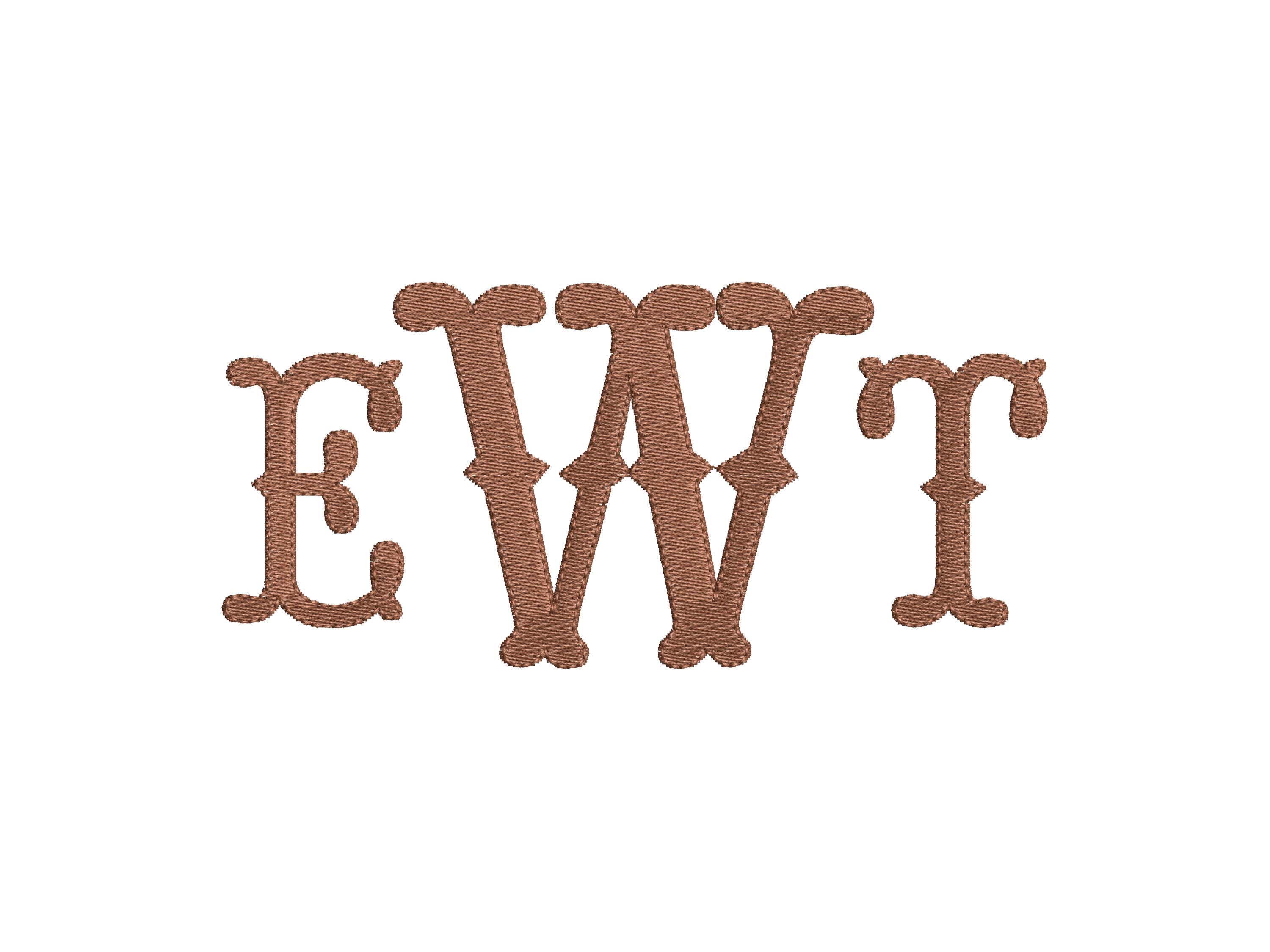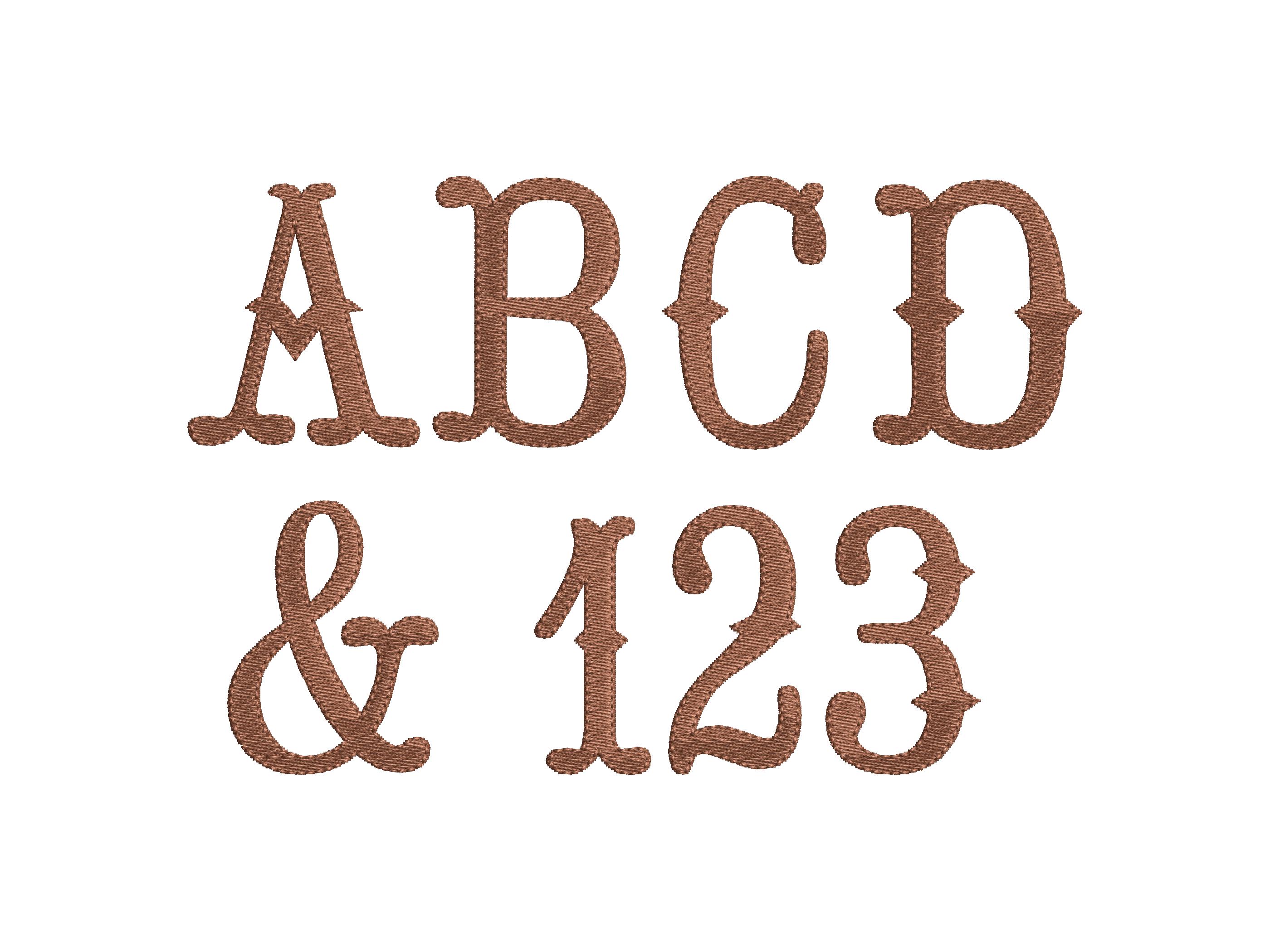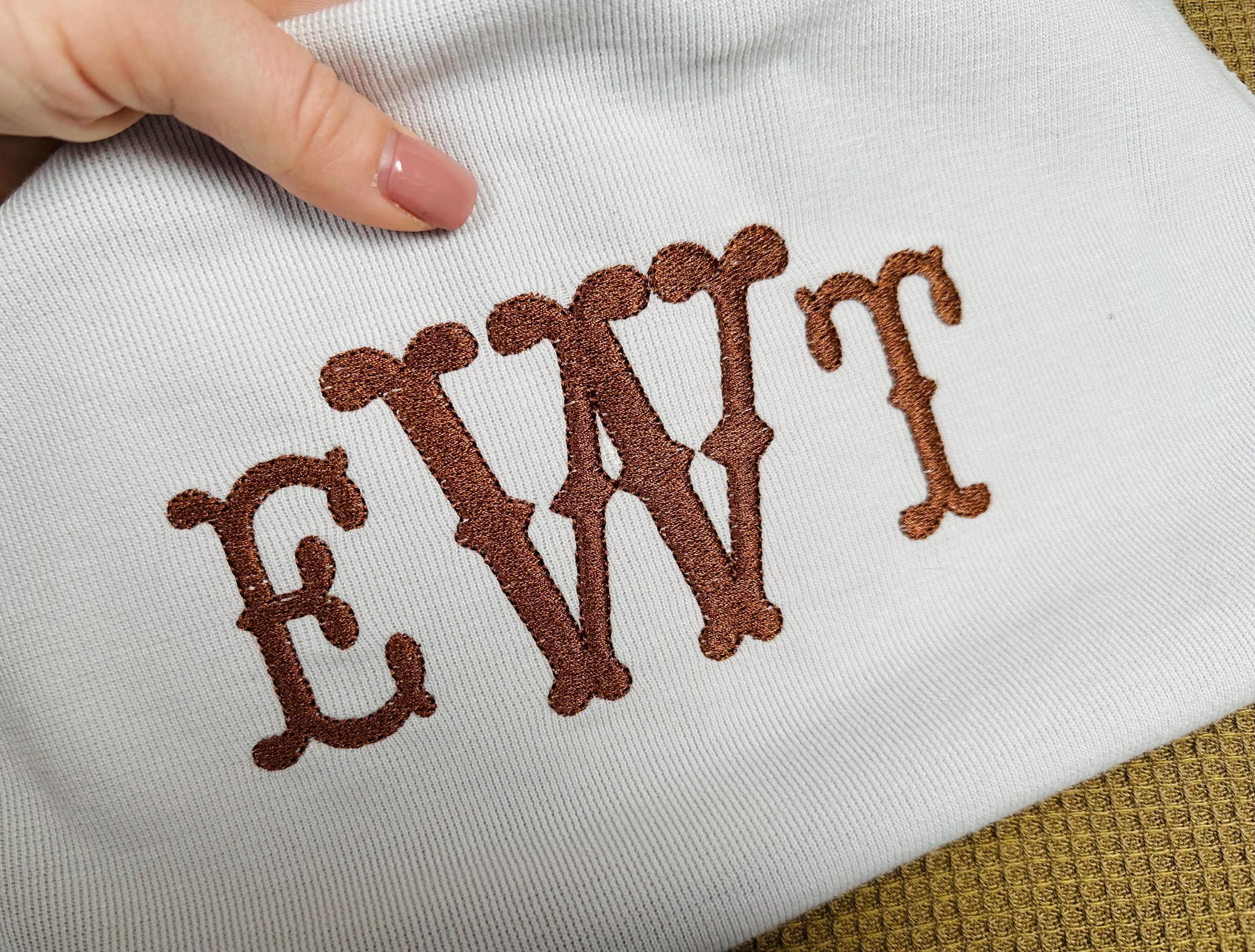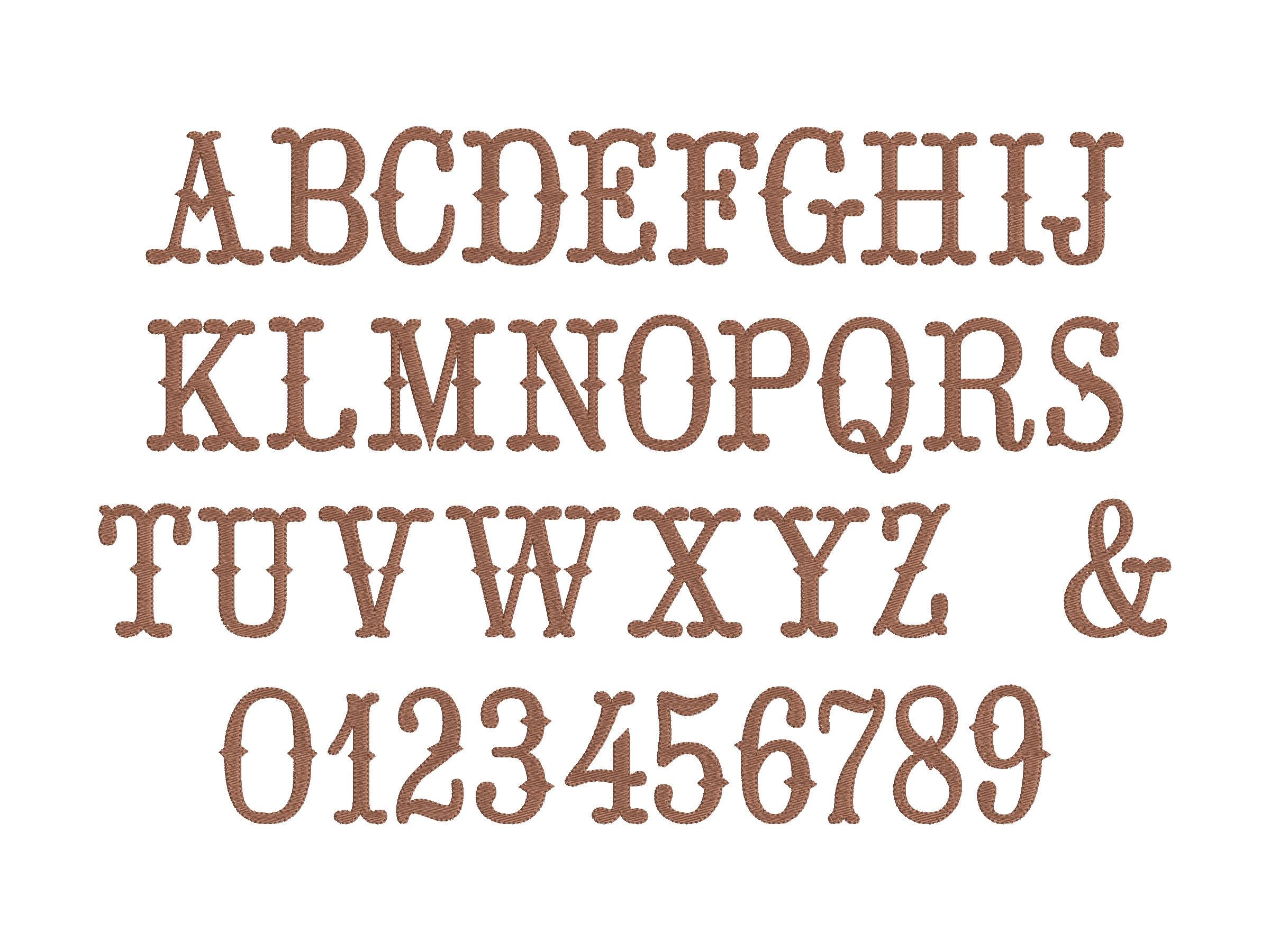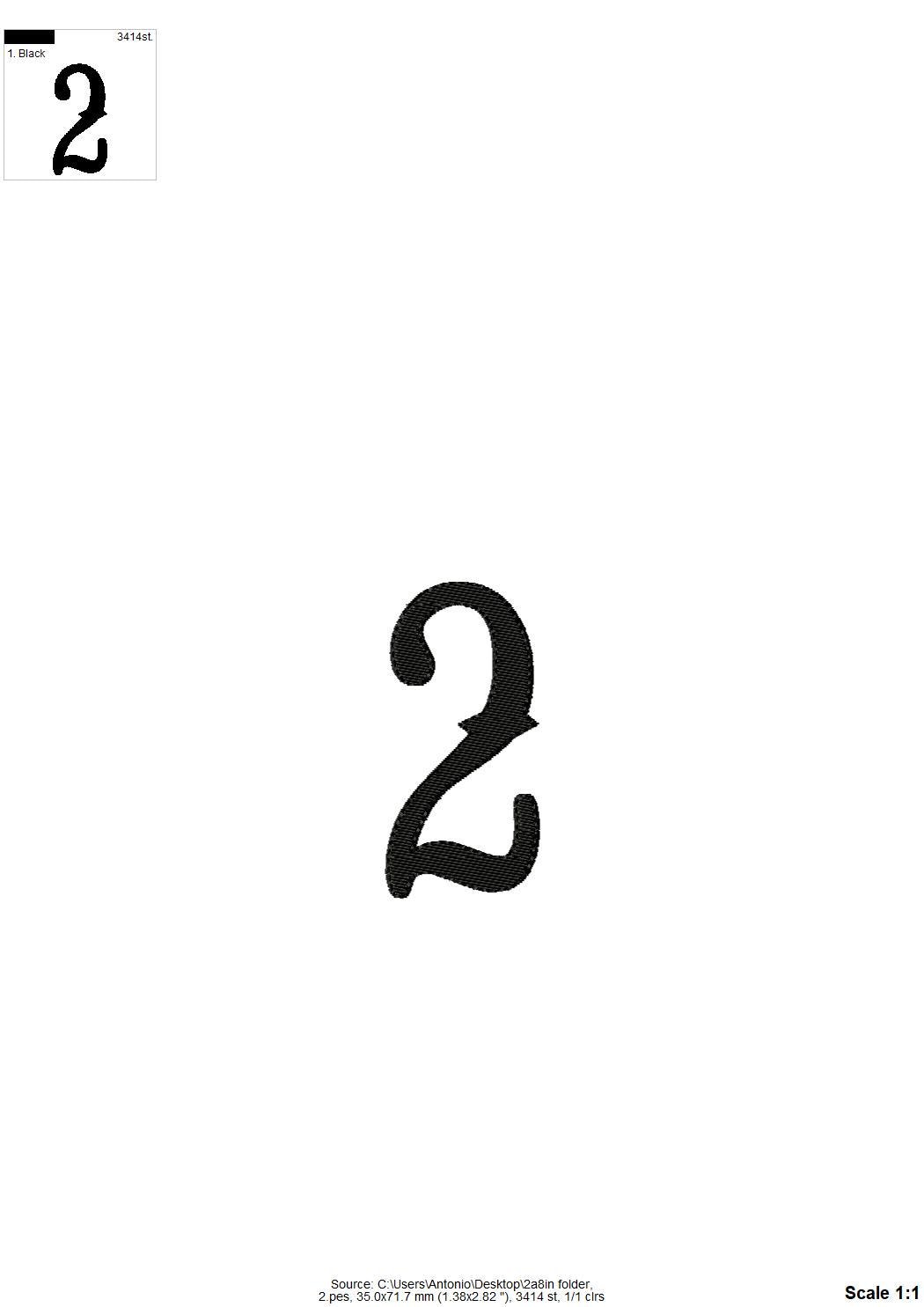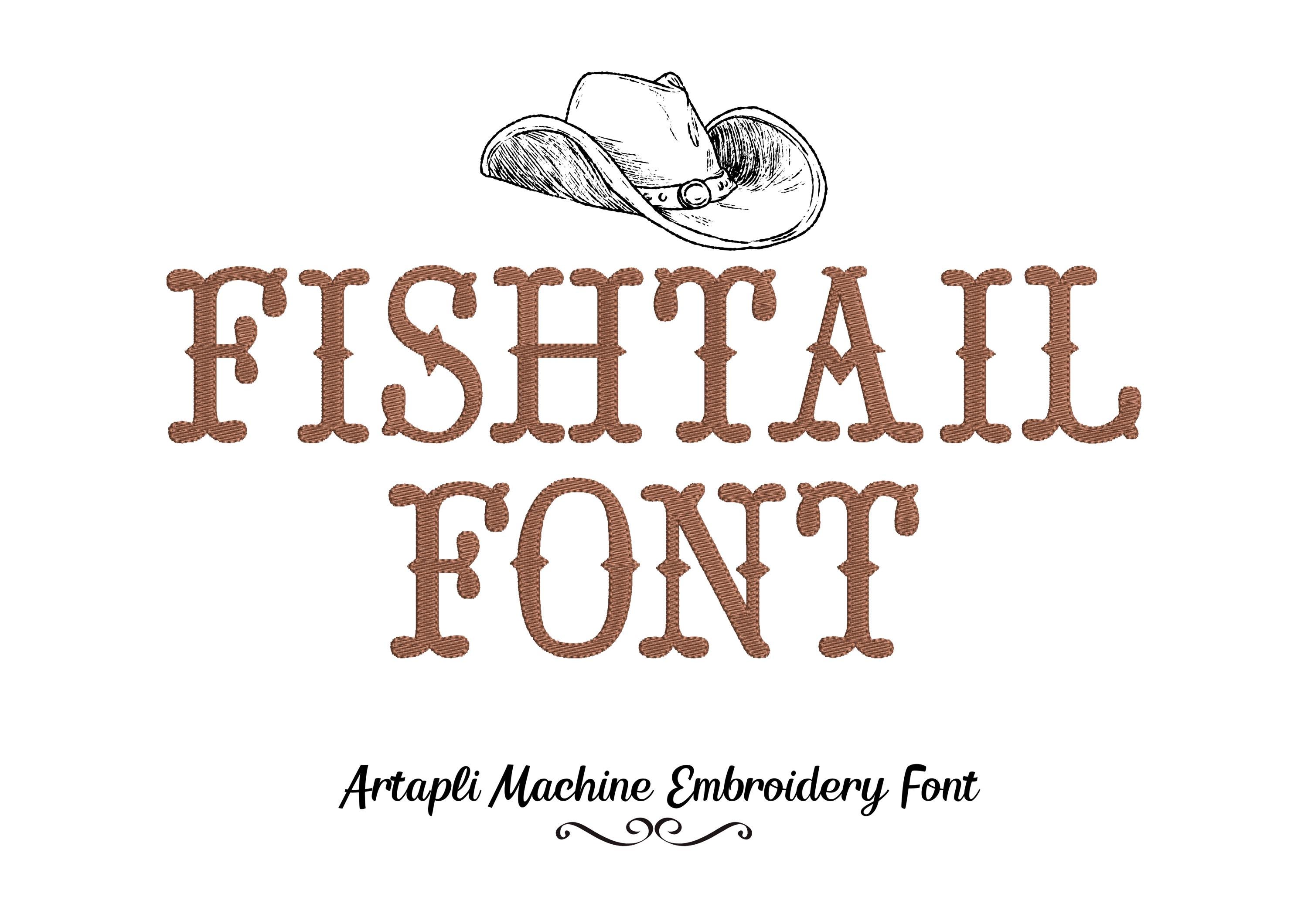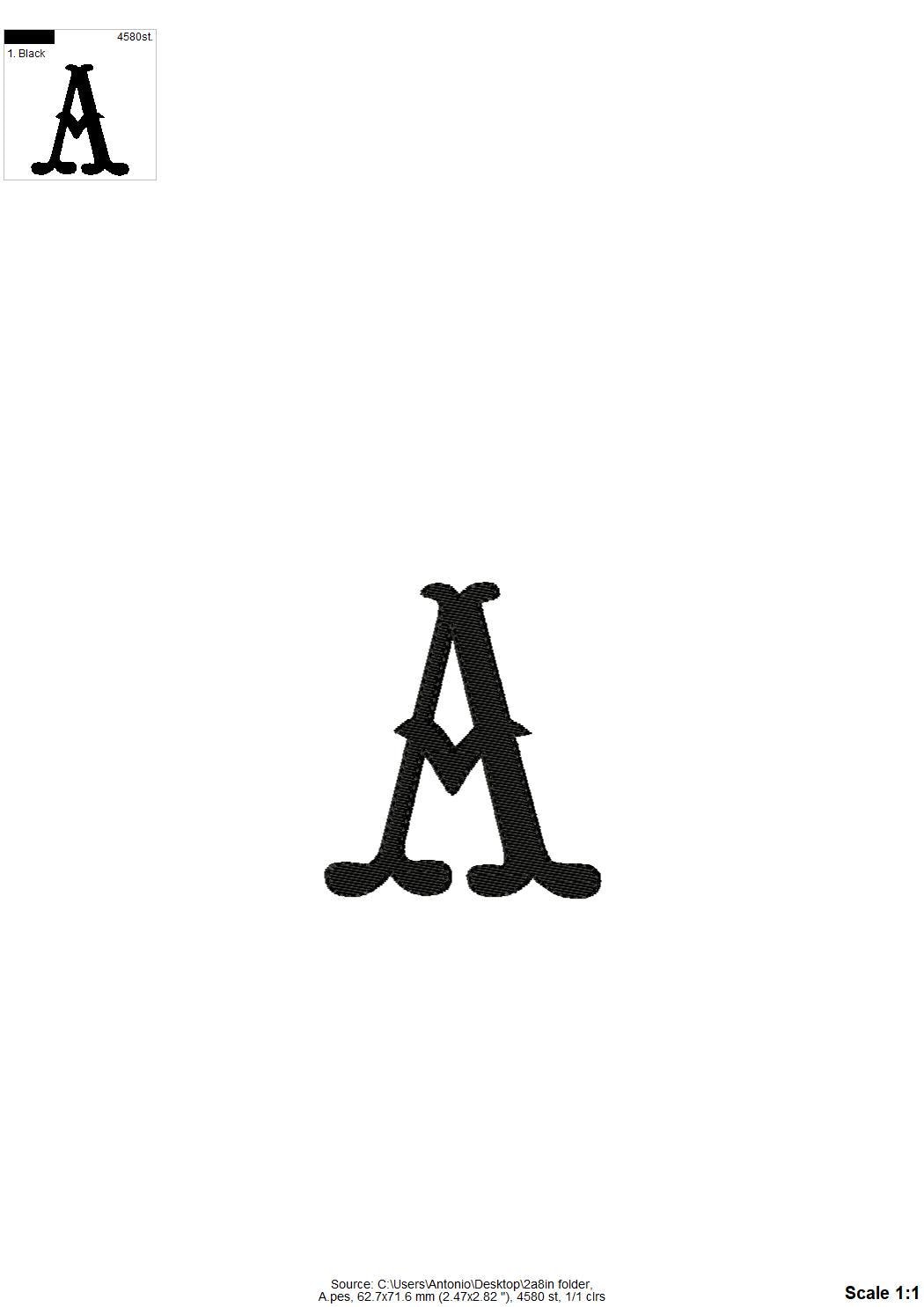
Monogram Fishtail Font machine embroidery designs western theme Cowboy saloon alphabet sizes 1.5 up to 3.7in kids boys fill stitch Font, and BX
Uppercase letters, numbers, and Ampersand